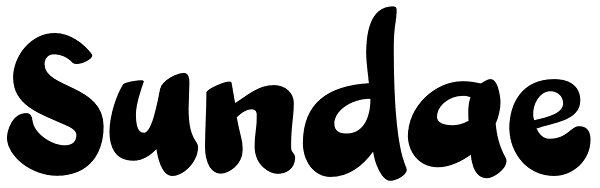
Sundae
Sundae is a brush script drawn with a naïve hand-made twist. The flow of curves, contrast in stroke and variations in letter heights add a human touch while the consistency in design allows for semi-extended setting. Sundae is best suited for large...